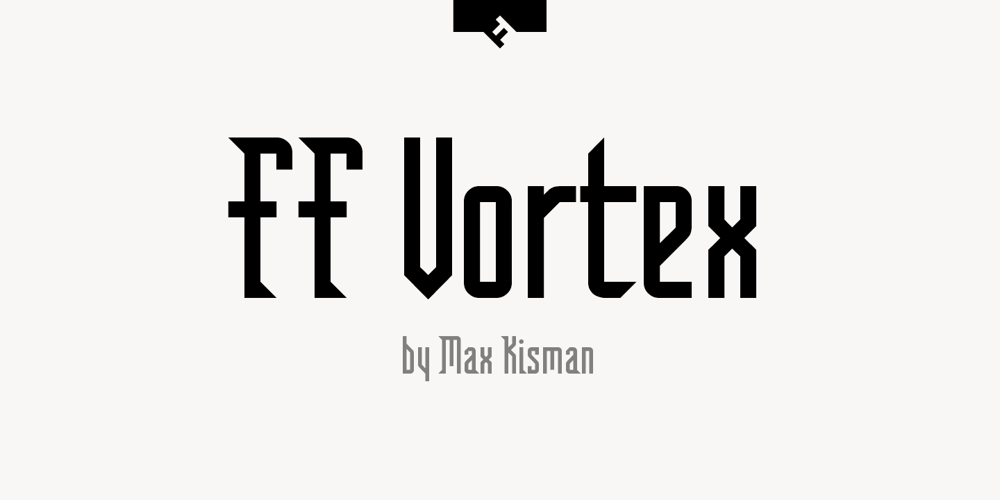
FF Vortex Font Family was designed by Max Kisman and published by FontFont. FF Vortex contains 1 styles and family package options. Dutch type designer Max Kisman created this display FontFont in 1990. The font is ideally suited for advertising and packaging and poster and billboards. FF Vortex provides advanced typographical support with features such as ligatures and case-sensitive forms. It comes with proportional oldstyle figures.